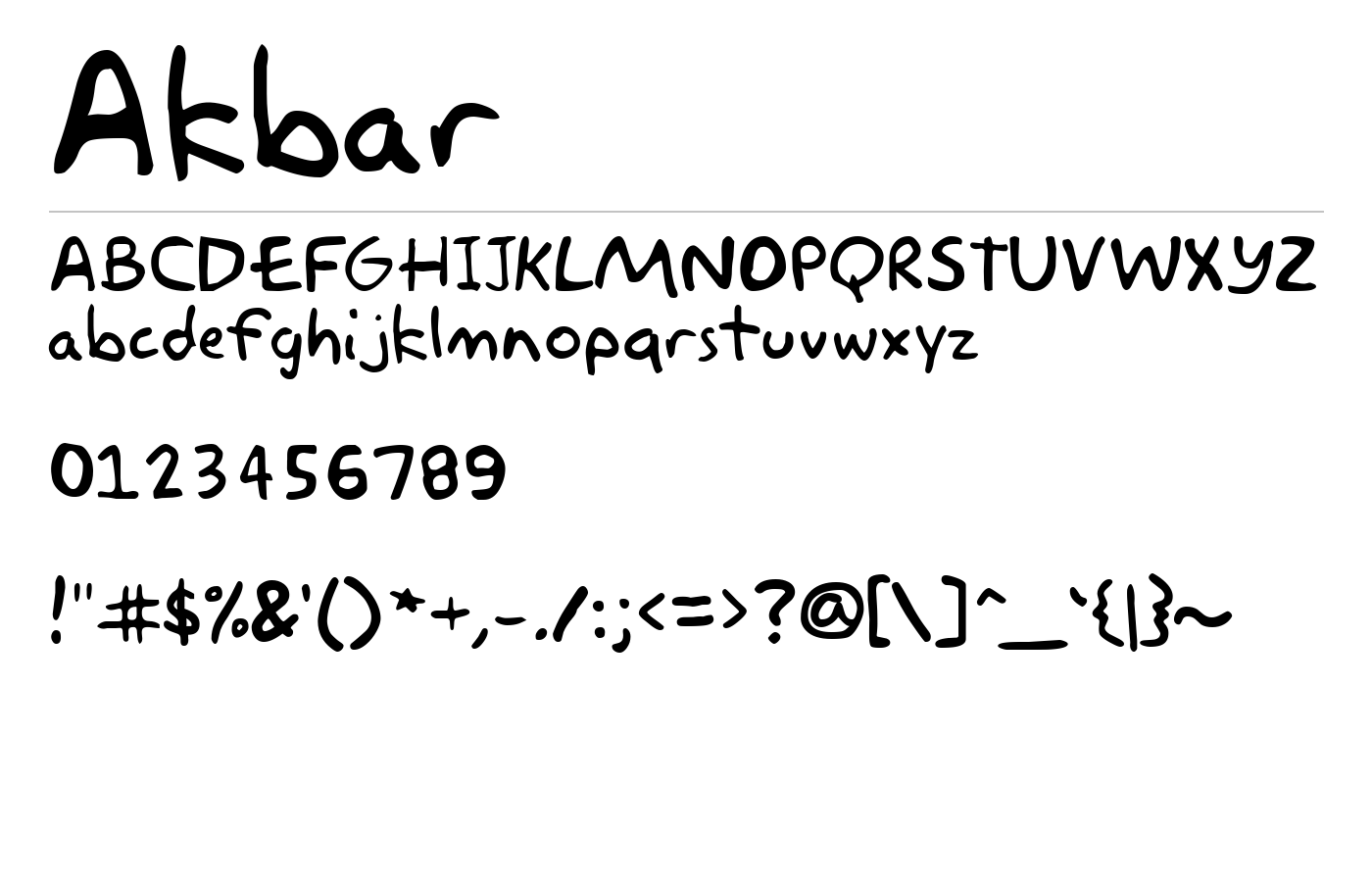
Akbar is a playful, casual sans serif font with a hand-drawn, slightly uneven style that gives it a friendly and approachable feel. Its regular weight and moderate x-height offer good readability, making it ideal for informal designs like children’s books, creative projects, and fun branding that benefit from a personal, human touch. This font works best in headlines and short text where a warm, inviting personality is desired.
Akbar Font
About Akbar Font
| Font family | Akbar Font |
| Designer | Jon Bernhardt |